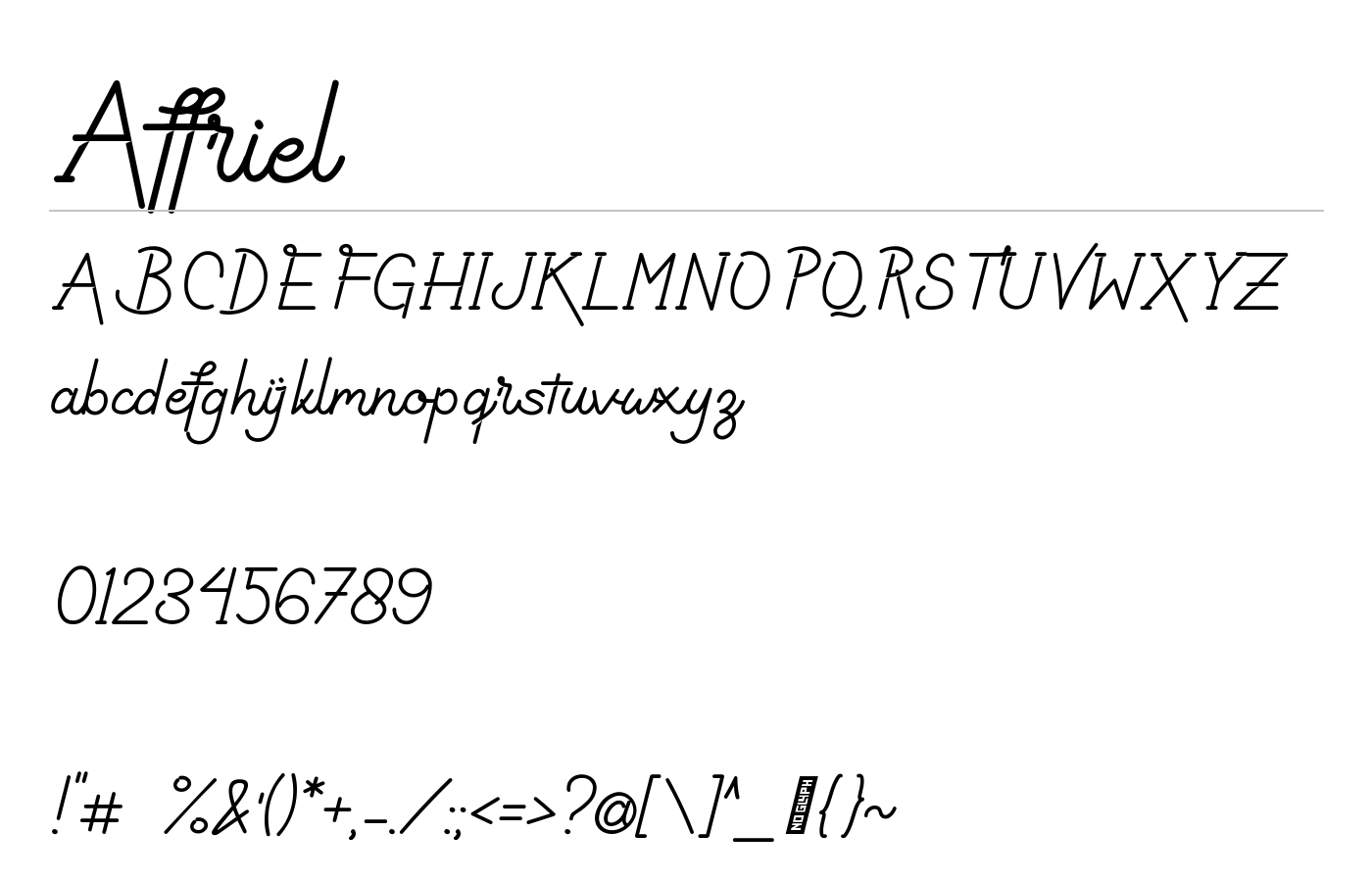
Affriel is a delicate, elegant script-inspired sans serif with a light weight and a slender, slightly condensed structure. Its smooth, flowing letterforms and playful loops give it a handwritten charm while maintaining clear readability, making it perfect for stylish branding, invitations, and modern editorial designs. This font conveys a friendly and sophisticated mood, ideal for projects seeking a refined yet approachable look.
Affriel Font